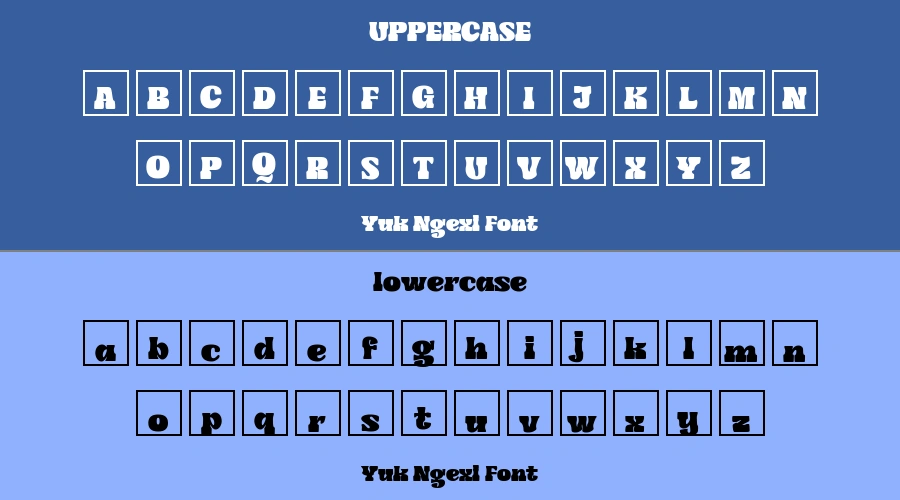
About Yuk Ngexi Font
Designed with precision, Yuk Ngexi Font merges harmonic curves with operational efficiency in every character. This versatility makes it particularly effective for wine labels, where adaptability and aesthetic excellence directly impact communication quality. Each letterform demonstrates meticulous craftsmanship.
Technical excellence shines through elements like geometric precision and logotype support, enhancing typographic versatility. In pull quotes settings, Yuk Ngexi Font proves its worth through superior footnote clarity. The thoughtful execution of character width and engineering heritage ensures professional results.